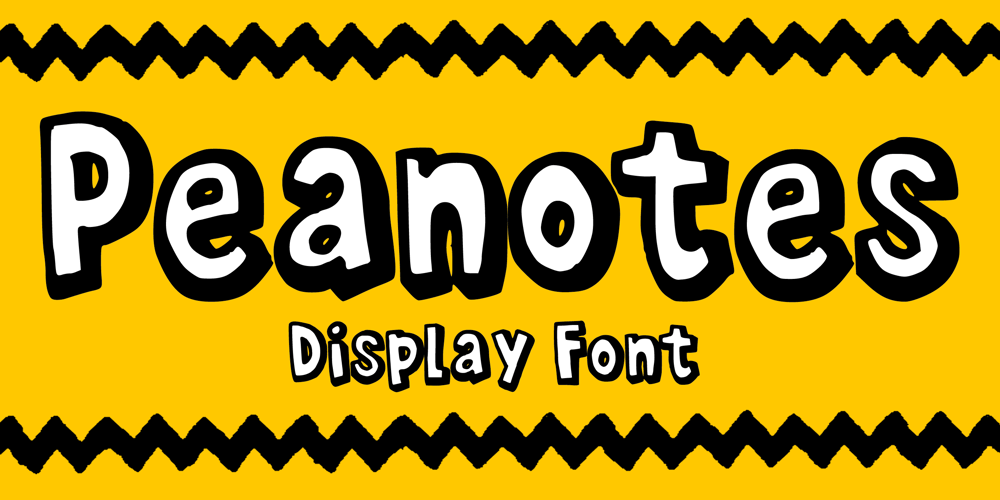
Peanotes Font Family was designed by Gabriel Valentinus and published by Mvmet. Peanotes contains 2 styles and family package options. Peanotes is a fun cartoon display font inspired by 80s and 90s cartoon movies. Peanotes font comes in 2 versions, regular and filler version. You can use it for anything ranging from t-shirts, book designs, and greeting cards to stickers and posters, or anything that needs a casual touch. Fall in love with its incredibly versatile style, and use it to create lovely designs!